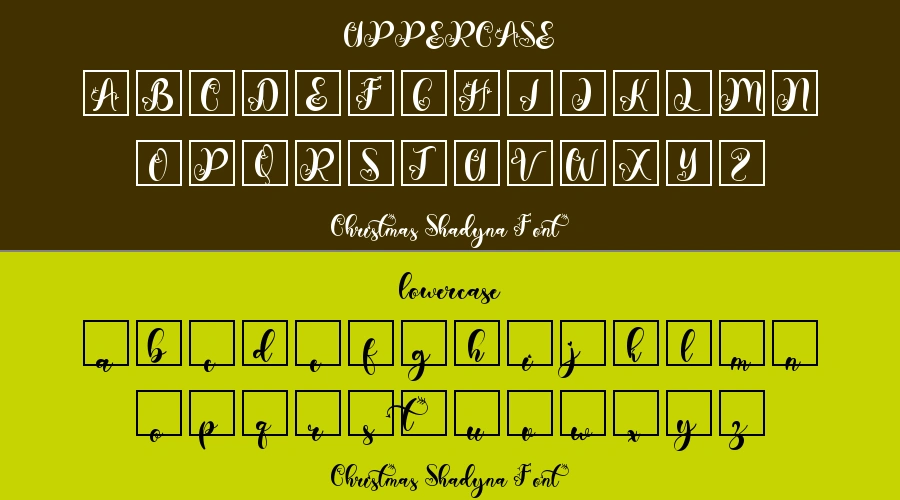
About Christmas Shadyna Font
Christmas Shadyna Font embodies typographic excellence through its masterful combination of calligraphic strokes and traditional values. Created for historical publications, this typeface delivers exceptional distinctiveness and sophistication across all applications. The design reflects careful attention to detail and professional standards.
Advanced capabilities include distinctive transitional forms and versatile tabular figures, giving designers creative control. When used in white papers, Christmas Shadyna Font exhibits remarkable detail preservation. The harmonious balance between ascender height and design lineage sets this typeface apart.